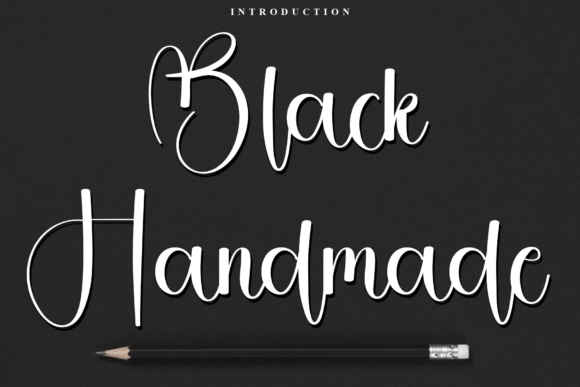
The Power of Black Handmade Font: Elevate Your Designs with Effortless Elegance
Have you ever been in the middle of a design project, pouring your heart and soul into every detail, only to realize that something is missing? You’re not alone. I’ve been there too. Recently, I was working on a wedding invitation design for a client who wanted something elegant and sophisticated. I tried font after font, but nothing seemed to capture the essence of the couple’s special day. That was until I stumbled upon the Black Handmade font.
This beautifully crafted script font has been a game-changer for my designs, and I’m excited to share its beauty with you. The Black Handmade font embodies effortless elegance and genuine artistry, making it perfect for projects that require a touch of luxury and authenticity.
A Closer Look: What Makes Black Handmade Font Special
The Black Handmade font is a typeface that captures the natural rhythm and irregularity of true hand-lettering, giving every word a unique, personal feel without sacrificing legibility. Its high contrast between thick and thin strokes adds a touch of classic sophistication, making it ideal for:
- Wedding invitations and stationery
- Stylish logos and branding
- Personalized gifts and product packaging
- Modern quote graphics and social media posts
- ✨ Beautifully flowing handwritten script with fine, graceful lines
- ✅ High contrast between thick and thin strokes adds classic sophistication
- ✅ PUA encoded, allowing access to amazing glyphs and ligatures
- ✅ Perfect for projects requiring a sense of luxury and authenticity
- ⚠️ May require some practice to get used to the unique letterforms and spacing
- 🤔 Limited use in very small font sizes due to intricate details
The Story Behind Black Handmade Font
The Black Handmade font was created with the intention of capturing the essence of hand-lettering and the imperfections that make it unique. The designer aimed to create a typeface that would evoke a sense of elegance and sophistication, while still feeling personal and authentic.
| What is the Black Handmade font best used for? | The Black Handmade font is best used for projects that require a sense of luxury and authenticity, such as wedding invitations, stylish logos, and high-end product packaging. |
| Is the Black Handmade font easy to read? | Yes, the Black Handmade font is designed to be legible, despite its elegant and refined feel. |
| Can I access OpenType features in the Black Handmade font? | Yes, the Black Handmade font is PUA encoded, allowing access to amazing glyphs and ligatures. |